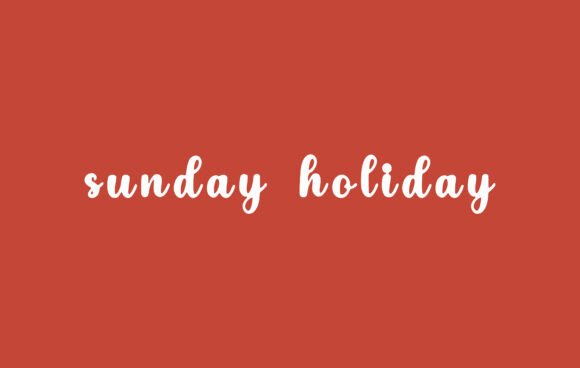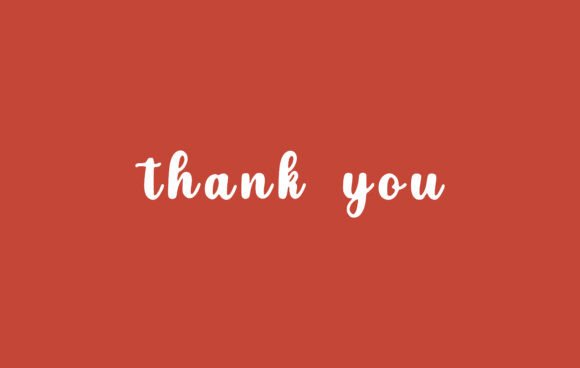
The Font that Captivates: Unlocking the Magic of Alhambra Font
You’ve spent hours pouring over your design, tweaking every detail until it feels just right. And then, it happens – the moment when your entire concept comes together, and you’re left breathless by the beauty of it all. It’s that moment when you know you’ve created something truly special, and the right font can be the key to unlocking its full potential.
Enter Alhambra Font, an authentic handwritten font with a romantic touch that’s sure to leave a lasting impression. Designed to elevate your creative ideas to new heights, this versatile font is perfect for a wide range of applications, from magazine headlines to wedding invitations. With its legibility and charming aesthetic, Alhambra Font is an invaluable asset for designers looking to add a touch of elegance to their work.
- Unique Characteristic: Alhambra features a unique blend of Arabic and European calligraphy, with intricate flourishes and elegant lines
I recently had the chance to work with the Alhambra font, and overall, I’m quite pleased with the experience. ✨ The elegant, sophisticated design makes it perfect for luxury brands, high-end publications, and anything that needs a touch of refinement.
Here are some of the things I think work particularly well:
- ✨ The flowing, cursive connections between letters create a sense of continuity and fluidity.
- ✨ The subtle nuances in letterform design give the font a rich, hand-drawn feel.
- ✨ The font’s high legibility makes it suitable for both body text and headlines.
- ⚠️ The font may be too ornate for some uses, such as body text in digital products.
- ⚠️ The font’s complexity can make it difficult to pair with other fonts.
Overall, I’d say the Alhambra font is a great choice for designers looking to add a touch of sophistication to their projects. While it may not be suitable for every use, it’s a versatile and elegant font that can elevate a wide range of designs.
For best results, use Alhambra Font in combination with elegant and intricate designs. It pairs well with ornate patterns, calligraphy, and cursive scripts. Experiment with different font sizes, colors, and styles to achieve a unique and eye-catching look.
Alhambra Font is ideal for:
– Luxury branding and packaging
– Fine art and calligraphy projects